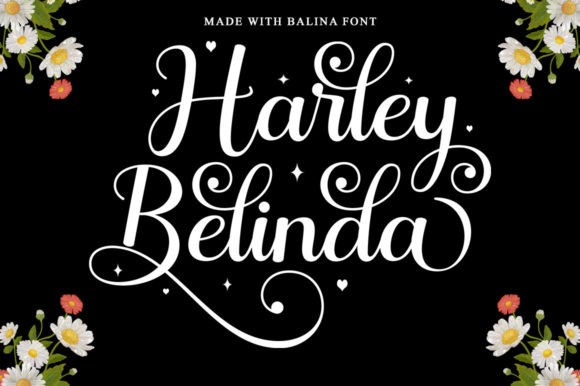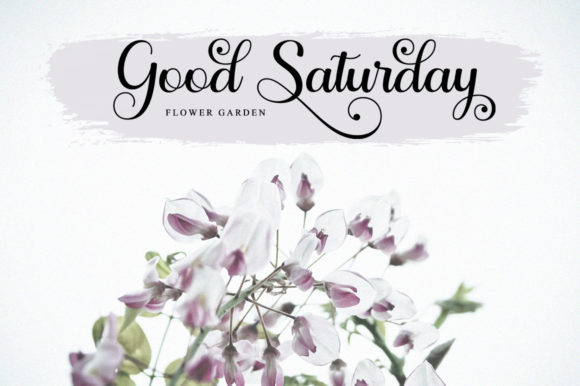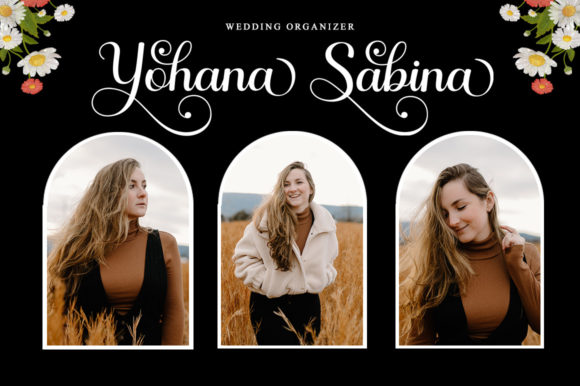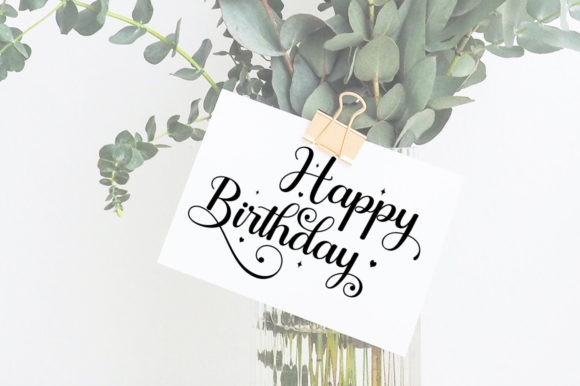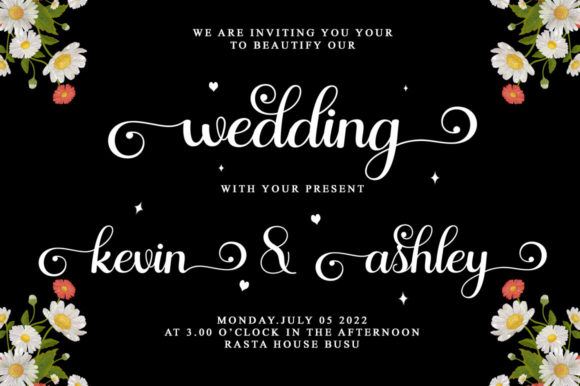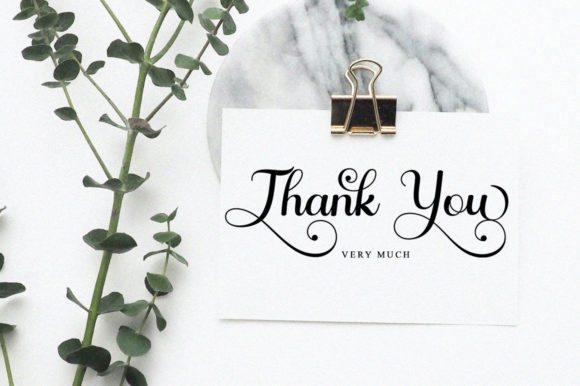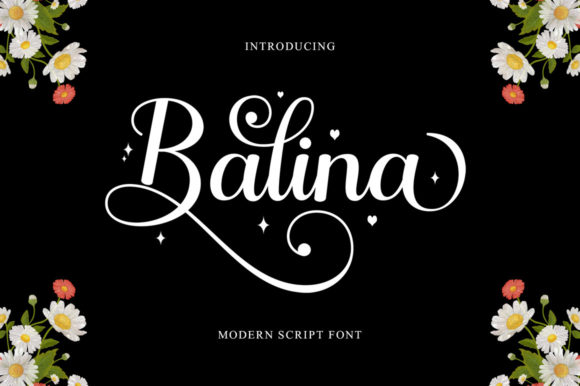
Introducing Balina Font: A Distinct and Graceful Script Font
Are you a designer or crafter looking for a font that can add a touch of elegance and sophistication to your designs? Look no further than Balina Font, a stunning script font that is sure to captivate your audience. With its ravishing style and flowing curves, Balina Font is the perfect choice for anyone looking to create beautiful and eye-catching designs.
What Makes Balina Font So Special?
Balina Font is a distinct and graceful script font that stands out from the crowd. Its unique and elegant style makes it perfect for a wide range of design projects, from wedding invitations and stationery to branding and advertising materials. Whether you’re a professional designer or a crafty DIY enthusiast, Balina Font is sure to inspire your creativity and help you create stunning designs.
One of the best things about Balina Font is that it is PUA (Private Use Area) encoded, which means that you can access all glyphs and swashes with ease. This makes it easy to customize your designs and add your own personal touch. With PUA encoding, you can easily access a wide range of alternative characters, ligatures, and swashes, giving you endless possibilities for creative expression.
Balina Font is perfect for designers and crafters who want to add a touch of elegance and sophistication to their designs. Whether you’re creating digital designs or handmade crafts, Balina Font is sure to impress. Its flowing curves and elegant style make it perfect for a wide range of projects, from:
- Branding and advertising materials
- Signs and displays
- Digital graphics and social media posts
- Handmade crafts and DIY projects
Tips for Using Balina Font
Here are a few tips for using Balina Font to create stunning designs:
- Use Balina Font as a headline font to add a touch of elegance and sophistication to your designs.
- Pair Balina Font with a simple sans-serif font for a beautiful contrast.
- Experiment with different swashes and glyphs to add a personal touch to your designs.
- Use Balina Font to create beautiful and eye-catching titles and headings.
In conclusion, Balina Font is a stunning script font that is sure to captivate your audience. With its ravishing style and flowing curves, it’s the perfect choice for designers and crafters who want to add a touch of elegance and sophistication to their designs. Its PUA encoding makes it easy to access a wide range of glyphs and swashes, giving you endless possibilities for creative expression. So why wait? Fall in love with Balina Font and use it to create gorgeous designs that will leave a lasting impression.